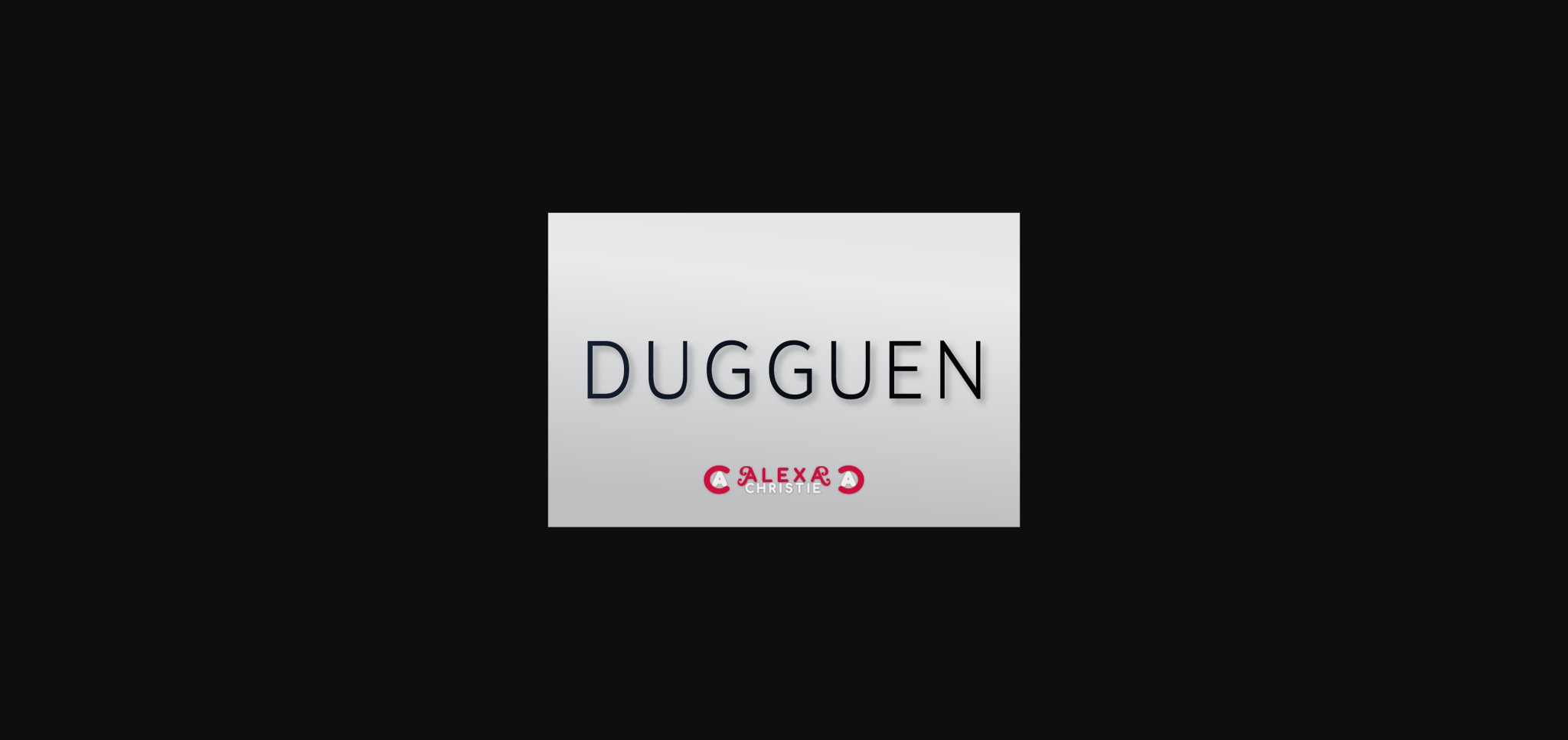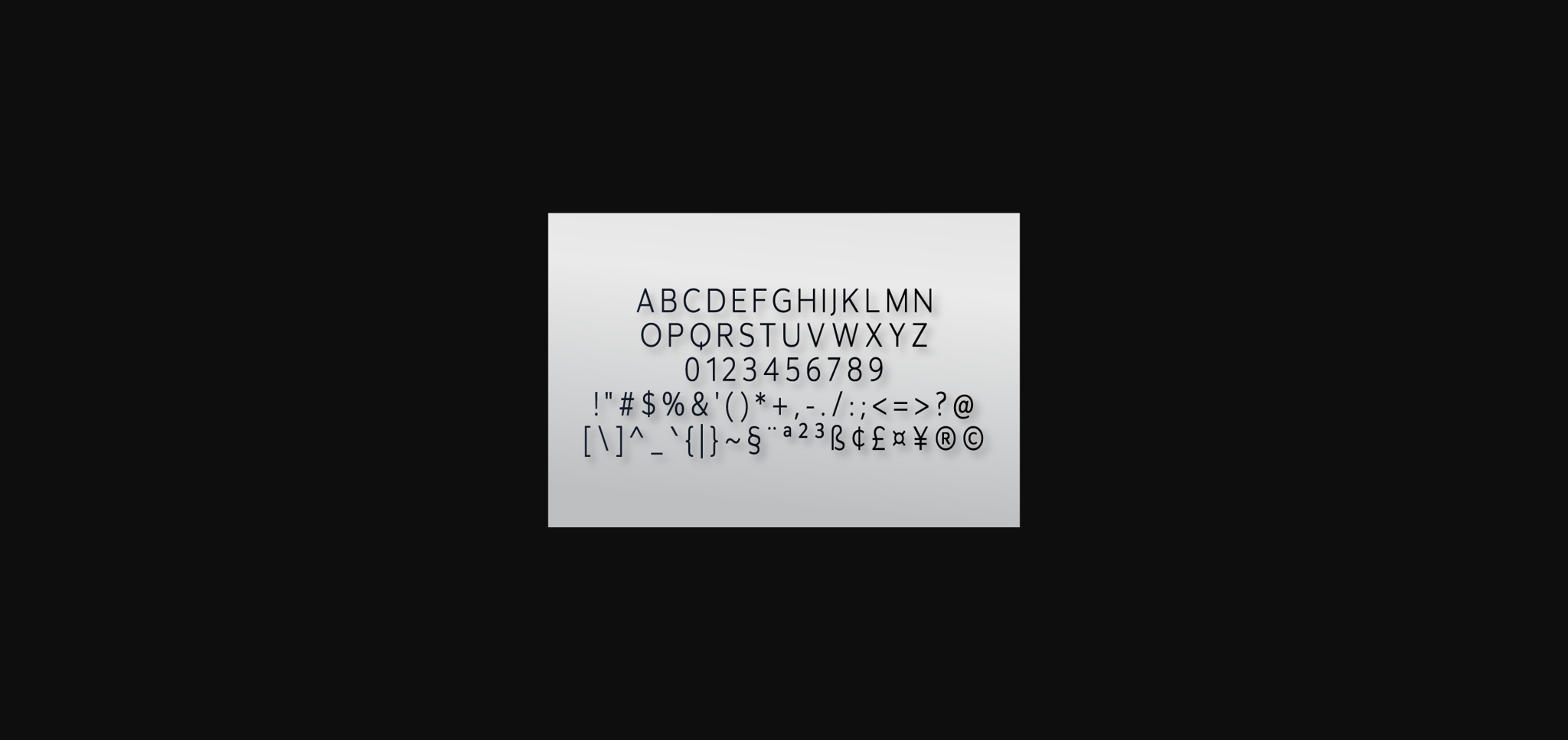
Dugguen Font
About Dugguen Font
Duggue is a sophisticated sans serif font. It features chunky and extended characters that will look particularly adept when used in logos, branding, packaging design, and much more. This masterfully designed typeface is a true must-have.